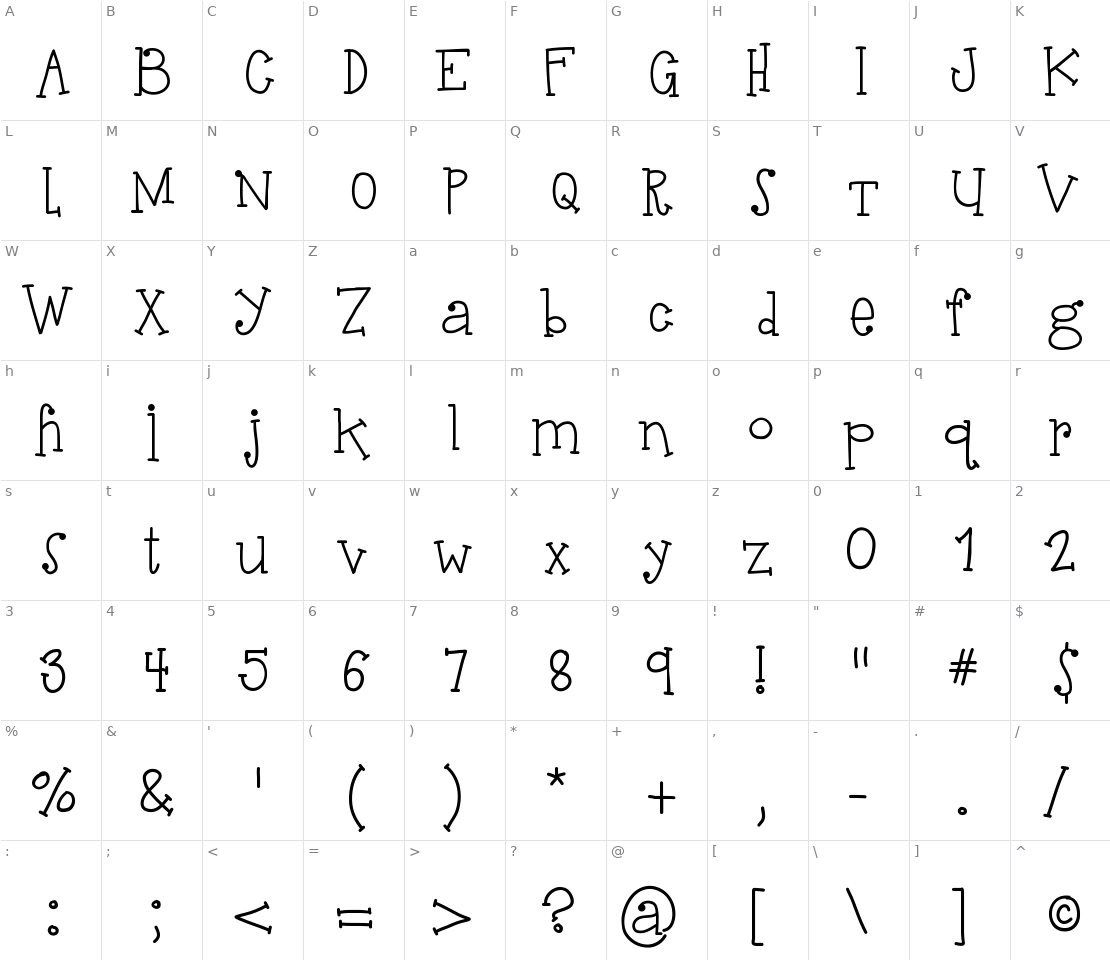
Hello SuhKurity
Hello SuhKurity is a thin, quirky display face by Jen Jones with an offbeat rhythm to its letterforms that keeps things playful without becoming chaotic. The lightweight strokes and whimsical details give each character a personality of its own, like handwriting from someone who decorates their notes for fun. Best kept to headlines, greeting cards, and lighthearted branding where its unique character can come through clearly.